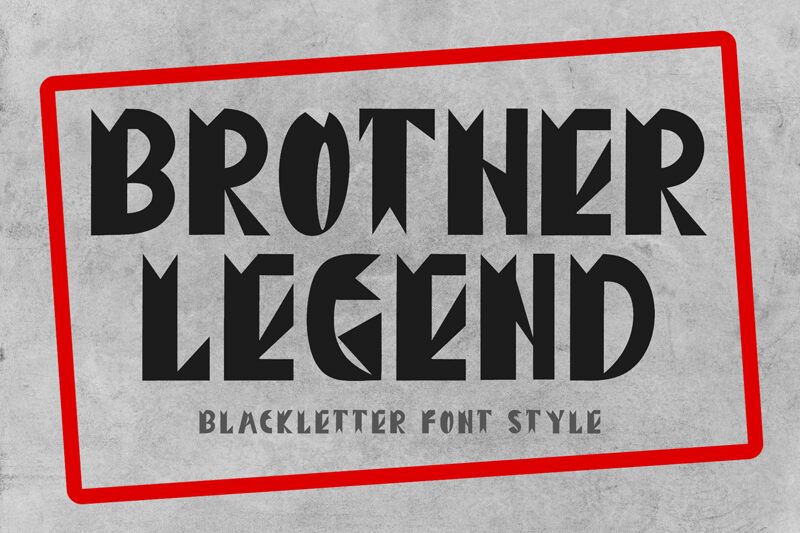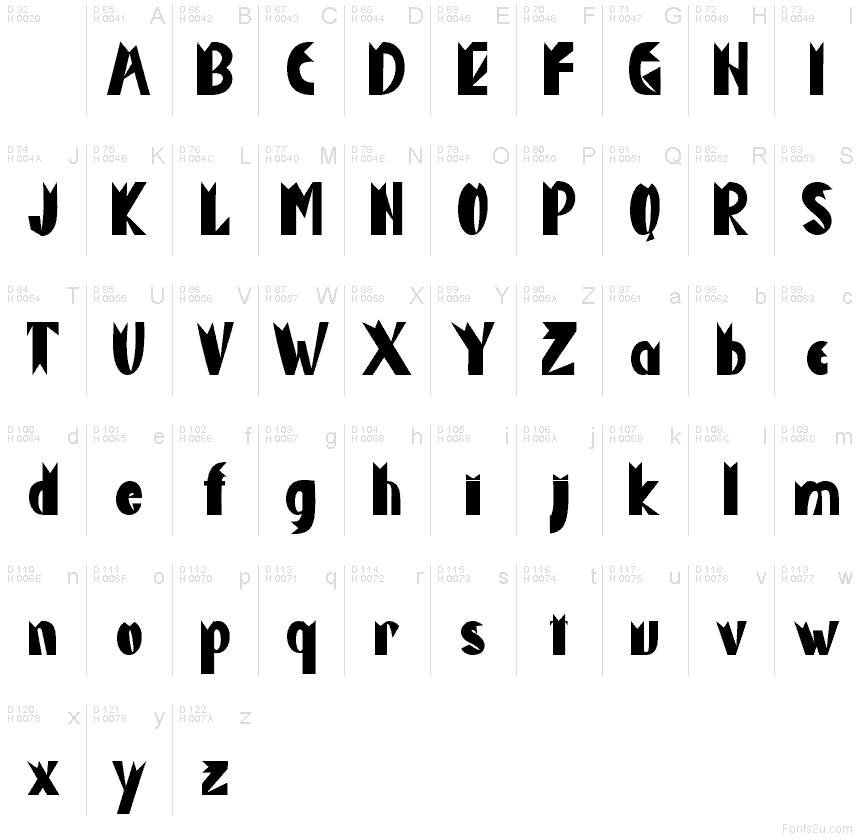
Brother Legend
Brother Legend font by Yoga Letter is a free decorative display typeface with bold, ink-heavy strokes and razor-sharp cuts that feel almost sculpted. The letters swing between chunky verticals and knife-like diagonals, creating a dramatic rhythm that grabs attention without feeling messy. There’s a touch of fantasy poster and vintage gothic signage in its DNA, giving your titles a theatrical, storybook flair.
Using Brother Legend, this free font shines on book covers, game titles, band logos, fantasy event posters, YouTube thumbnails, and dramatic branding lockups. Its dense forms love large sizes, where the angular details can really breathe. Pair it with a clean, light sans serif for body text to balance its dark, moody presence and keep your layouts readable and striking.